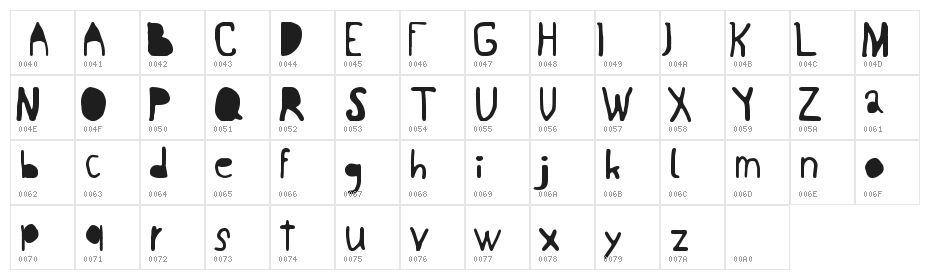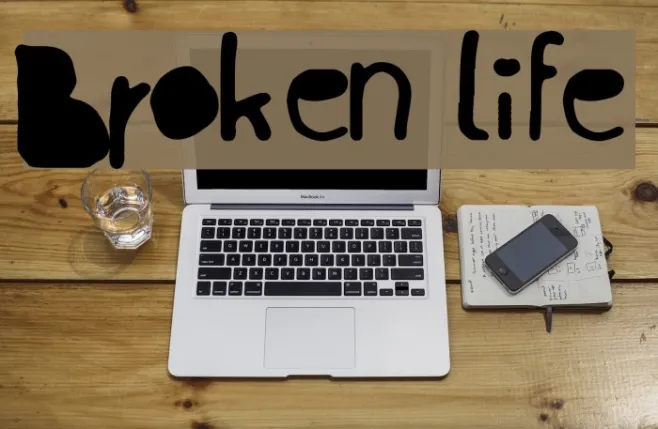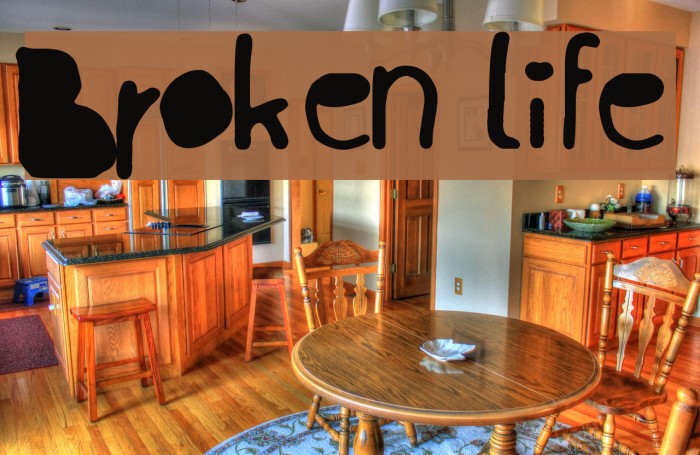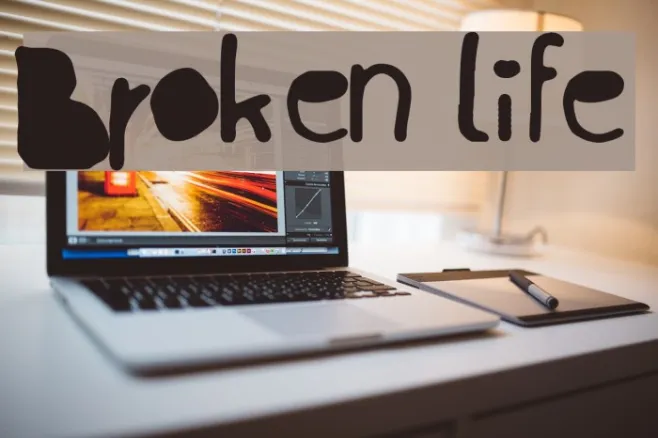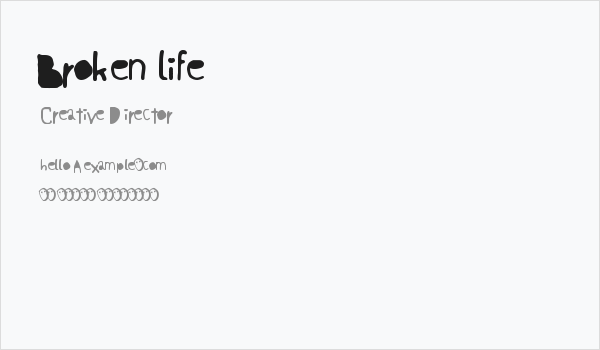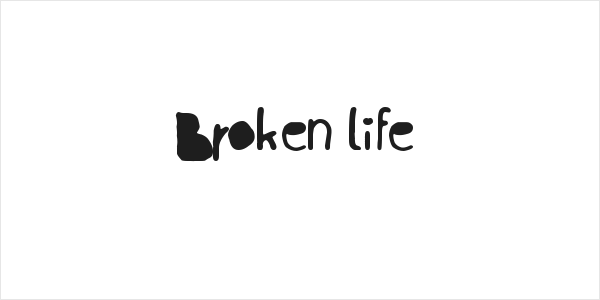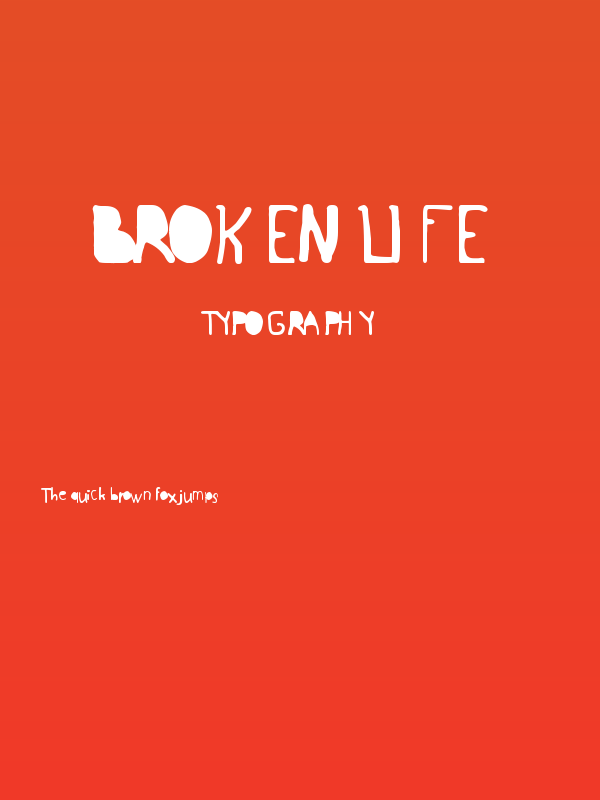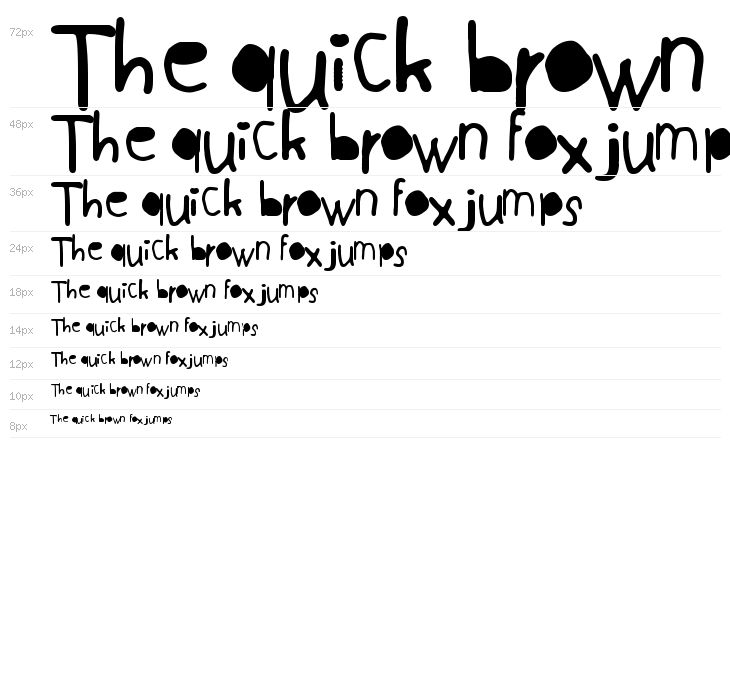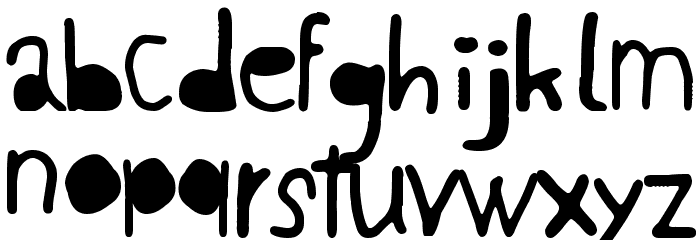
Broken life Font
Broken life Description
This font exhibits a playful and quirky style, characterized by its uneven and irregular letterforms. The uppercase letters are bold and slightly distorted, giving a hand-drawn appearance. The lowercase letters maintain this whimsical quality, with some characters having exaggerated curves and strokes. The numbers and special characters follow the same playful design, adding to the overall uniqueness. The font's organic and imperfect lines suggest a sense of movement and creativity, making it ideal for projects that require a fun and informal touch.
| Overall Style | Playful, Quirky, Hand-drawn |
| Proposed Projects | Ideal for children's books, creative posters, informal invitations, and playful branding. |